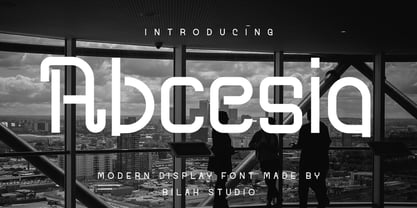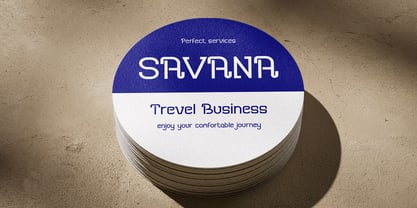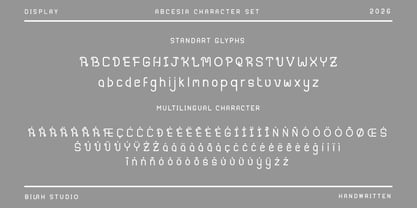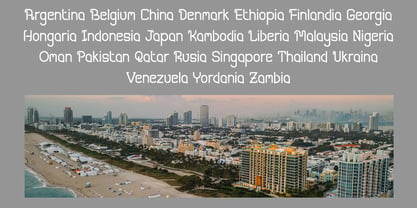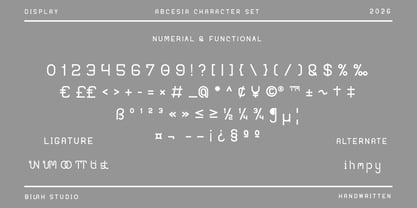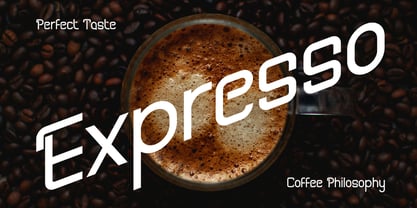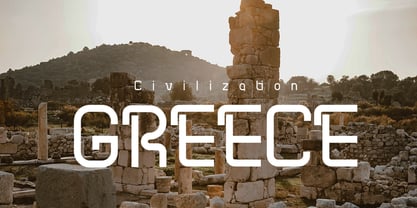
Abcesia
by Bilahstudio
The Abcesia Font Family was designed by Ismunandar Rambe and published by Bilahstudio. Abcesia contains 1 styles. More about this family
Abcesia is a retro, vintage-inspired typeface. It's a unique display typeface. I also love its vintage-inspired style, which gives it a cool and nostalgic feel. Abcesia includes alternate characters, ligatures, and multilingual support. Abcesia is the perfect choice for any creative endeavor, creating elegant and chic vintage-inspired designs such as logos, titles, histories, and more. Now you have even more options when using Abcesia for typography. Abcesia is here to elevate your work to the next level!
Designers: Ismunandar Rambe
Current Foundry: Bilahstudio
Bilahstudio is an independent digital type foundry company specializing in lettering, founded in 2025 and managed by Ismunandar Rambe. I provide a wide range of fonts for various purposes, from fonts for graphic design, logos, and presentations, to fonts for personal use. I focus on high-quality, hand-crafted fonts, particularly script styles and others. I truly enjoy drawing letters, as it allows me to bring out my best skills in creating beautiful, visually appealing, and marketable letters.